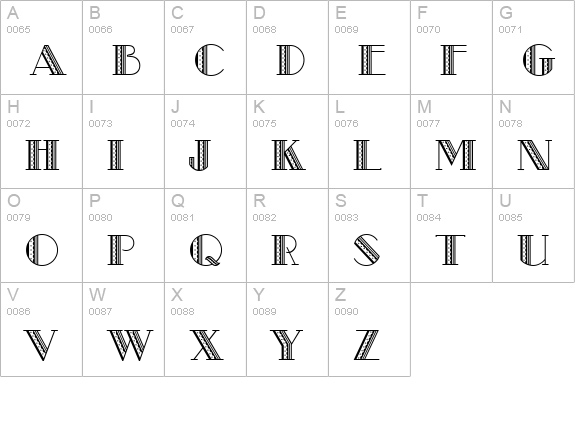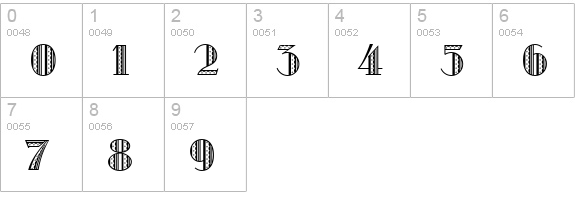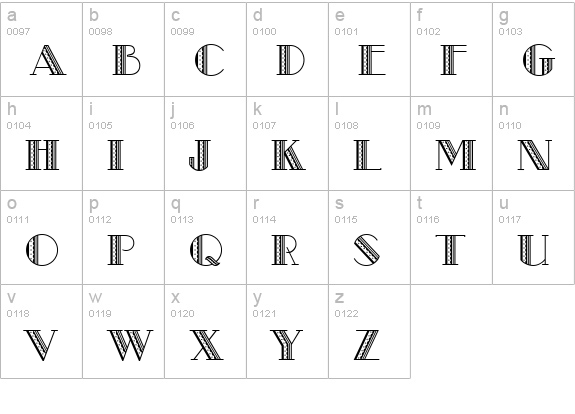
CgModernistic Font Details
CgModernistic font is a sleek and contemporary typeface that embodies a perfect balance of elegance and modernity. Its clean lines and sharp edges exude a sense of sophistication, making it ideal for a wide range of design projects. Whether used for branding, editorial design, or web content, CgModernistic adds a touch of class and style to any visual creation. The best part? CgModernistic font is available for free download at FontsMarket.com. Embrace the power of this versatile font and elevate your designs with its timeless appeal. Don't miss out on the opportunity to enhance your creative projects with this exceptional typeface. Download CgModernistic today and let your designs shine with effortless elegance.